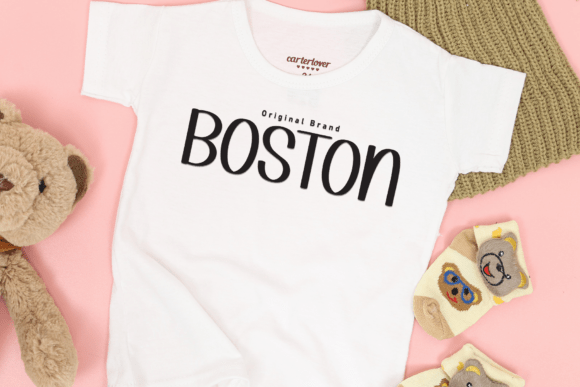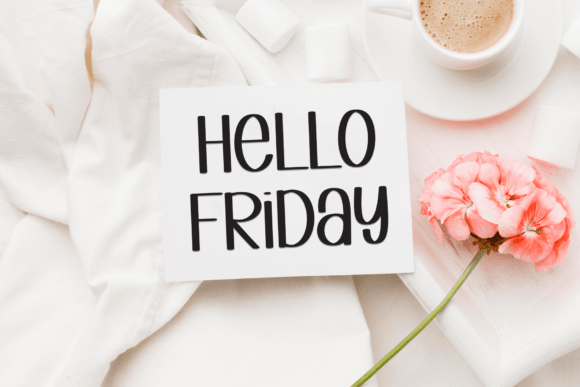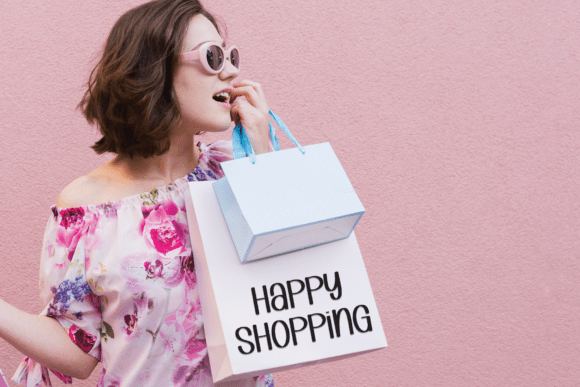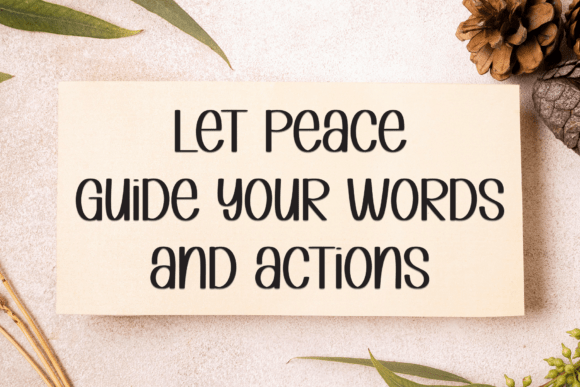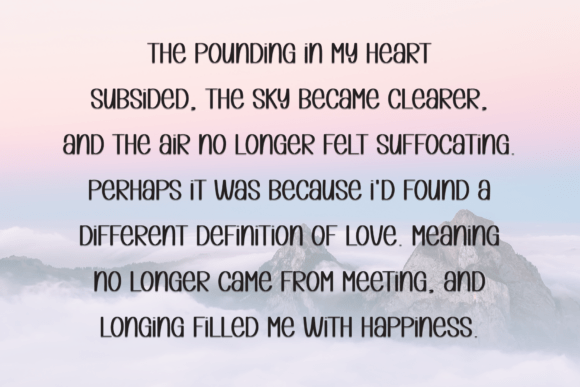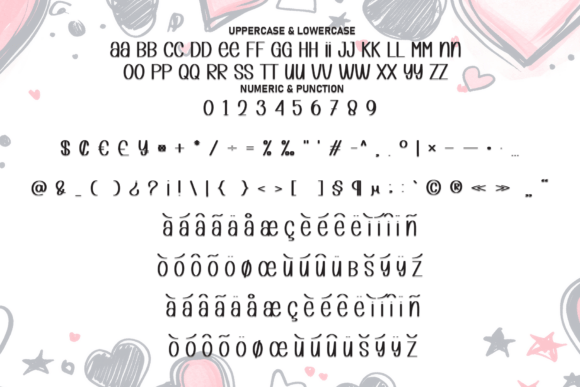
Introducing Comic Valentine Font: The Sweet and Friendly Handwritten Display Font
Are you looking for a font that can add a touch of whimsy and playfulness to your designs? Look no further than the Comic Valentine Font, also known as “Sweet and Friendly.” This enchanting handwritten display font is perfect for creating warm-hearted wedding invites, captivating cards, and other creative projects that require a sprinkle of magic.
The Allure of Sweet and Friendly
The Comic Valentine Font, or “Sweet and Friendly,” has a captivating appeal that makes it stand out from other fonts. Its handwritten display style gives it a personal and friendly touch, making it perfect for designs that require a warm and inviting tone. Whether you’re creating wedding invitations, greeting cards, or other craft projects, this font is sure to elevate your design acumen to impressive new heights.
Perfect for Whimsical Designs
The Sweet and Friendly font is ideal for designers and crafters who want to add a touch of whimsy to their projects. Its playful tone and vibrant style make it perfect for creating designs that require a bit of personality. Imagine creating a wedding invitation that sets the tone for a fun and playful wedding celebration, or a greeting card that brings a smile to the recipient’s face. This font makes it all possible.
The Comic Valentine Font, or “Sweet and Friendly,” offers endless design possibilities. You can use it to create:
- Wedding invitations and save-the-date cards
- Greeting cards for birthdays, anniversaries, and holidays
- Custom party invitations and decorations
- Branding and packaging materials
Why Choose Sweet and Friendly?
So, why choose the Comic Valentine Font, or “Sweet and Friendly”? Here are just a few reasons:
- Unique and eye-catching style: This font has a unique and eye-catching style that’s sure to grab attention.
- Easy to read and understand: Despite its playful style, this font is easy to read and understand, making it perfect for designs that require a clear message.
- Versatile: This font can be used for a wide range of design projects, from wedding invitations to social media graphics.
- High-quality: This font is of high quality, making it perfect for professional designs.
Tips for Using Sweet and Friendly
Here are a few tips for using the Comic Valentine Font, or “Sweet and Friendly,” in your designs:
- Pair it with other fonts: This font pairs well with other fonts, so feel free to experiment with different combinations.
- Use it for headings and titles: This font is perfect for headings and titles, where you want to grab attention and add a touch of personality.
- Experiment with colors: This font looks great in a variety of colors, so don’t be afraid to experiment and find the perfect color for your design.
In conclusion, the Comic Valentine Font, or “Sweet and Friendly,” is a versatile and eye-catching handwritten display font that’s perfect for designers and crafters who want to add a touch of whimsy to their projects. Its unique style, ease of use, and high-quality make it a great choice for a wide range of design projects. So, why not give it a try and see the magic it can bring to your designs?
Get Ready to Fall in Love with Your Designs
With the Comic Valentine Font, or “Sweet and Friendly,” you’ll be able to create designs that are not only visually stunning but also convey a sense of warmth and personality. Whether you’re a designer, crafter, or DIY enthusiast, this font is sure to become a favorite in your collection. So, get ready to fall in love with your designs and take your creativity to new heights with the Sweet and Friendly font.